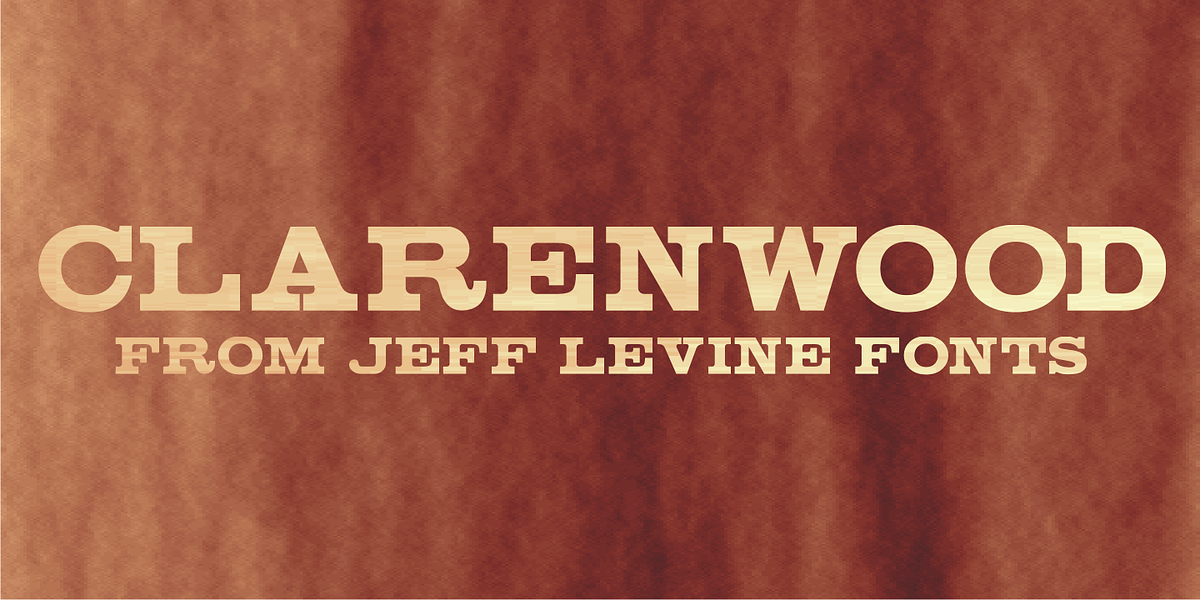
Clarenwood JNL
Based on some examples of a Clarendon-inspired wood type design, Clarenwood JNL is a bold and effective titling font which harkens back to old times and advertising on a grander scale.